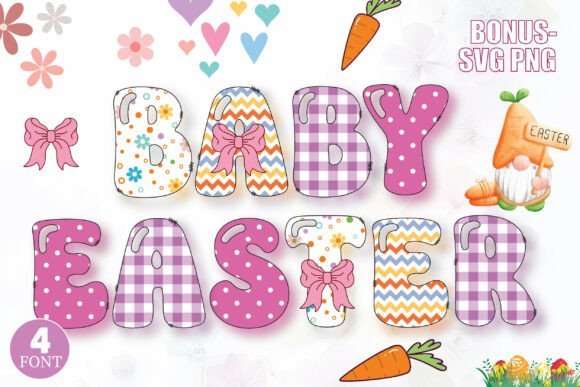
Spring into Easter Design with the Baby Easter Font
As a designer, there’s nothing quite like the thrill of brainstorming ideas for a new project. The Easter season is always a great time to get creative, and for many of us, it’s a chance to think about the little ones in our lives. I still remember the Easter baskets I made for my nieces and nephews when they were younger – the colorful eggs, the fluffy bunnies, and of course, the adorable fonts that brought it all together.
Speaking of fonts, I’m excited to introduce the Baby Easter Font bundle, a collection of four playful styles designed specifically for Easter-themed projects. From the Baby Easter Dot font to the Baby Easter Zigzag font, each style is bursting with cute spring-inspired details that are sure to add a touch of festivity to any design. As a designer, you’ll appreciate the versatility of this bundle, which is perfect for a range of projects, from baby and kids’ themes to seasonal print-on-demand products.
Baby Easter Font Key Features
- Character Count: 200+ characters, including uppercase and lowercase letters, numbers, and special symbols.
- Unique Characteristics: Whimsical, hand-drawn design with a mix of bold and delicate lines, perfect for Easter-themed designs and projects.
Baby Easter Font Review
As a designer, I was excited to dive into the Baby Easter Font and see what it had to offer. Overall, I’d say this font has some cute and playful aspects to it, but it also has some limitations that might make it less suitable for some projects.
- Whimsical feel: The font’s rounded edges and playful character shapes give it a lighthearted and endearing quality that’s perfect for Easter-themed designs.
- Good for hand-lettering: The font’s irregularities and imperfections make it a great choice for hand-lettering and custom typography projects.
- Cute character variations: The font includes a range of character variations, including Easter-themed symbols and icons.
- Limited font weight options: The font only comes in a single weight, which might limit its usability in certain design contexts.
- Not ideal for large blocks of text: The font’s playful feel and irregularities make it better suited for short texts and decorative elements rather than large blocks of text.
The Baby Easter Font is a cute and playful addition to any designer’s toolkit. While it might not be suitable for every project, it’s a great choice for Easter-themed designs, hand-lettering, and custom typography projects. With its whimsical feel and cute character variations, it’s sure to add a touch of personality to any design.
Baby Easter Font Practical Application Guide
Use the Baby Easter Font for Easter-themed invitations, party decorations, and gift tags. To get the most out of the font, use it in combination with other Easter-themed elements, such as eggs, bunnies, and flowers. Experiment with different font sizes and colors to create a visually appealing design.
Alternatives to Baby Easter Font
Baby Easter Font is a whimsical, hand-drawn font often used for children’s designs, Easter-themed projects, and other playful purposes. However, if you’re looking for alternatives, here are a few options:
Great Vibes is a beautiful, hand-drawn font that combines elegance and playfulness. It’s ideal for designs that need a touch of sophistication, such as wedding invitations, greeting cards, or travel brochures. Compared to Baby Easter Font, Great Vibes has a more refined and sophisticated look, making it suitable for a wider range of designs.